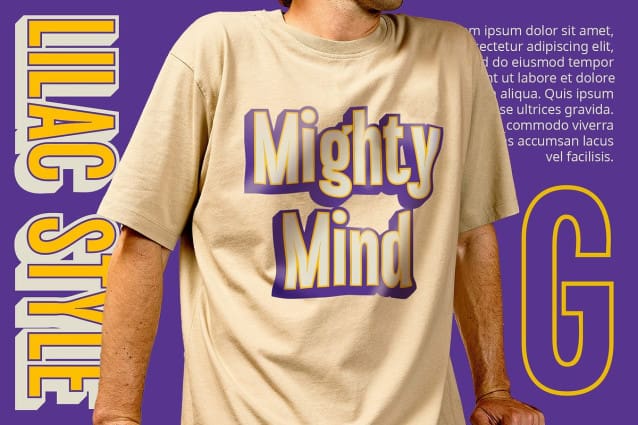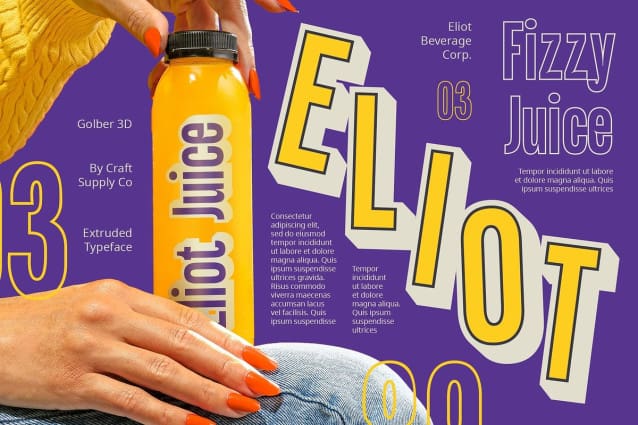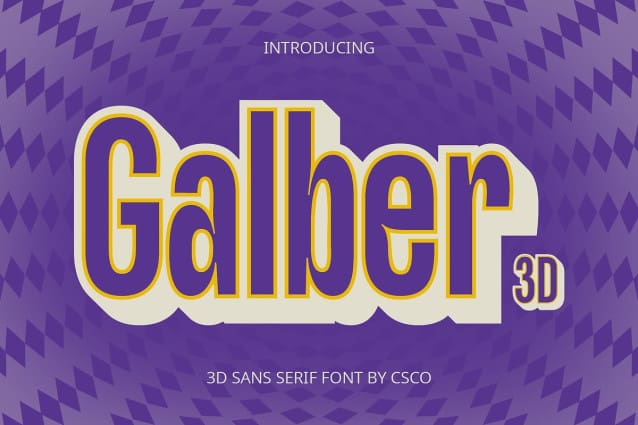
Galber 3D Font
Galber 3D Font: Bold and Impactful Display Font. Bold Condensed Design Galber 3D features a bold condensed design that commands attention with its compact and powerful appearance.
Low Contrast and 3D Effect The font boasts low contrast and a striking 3D effect, adding depth and dimension to each character for an eye-catching display.
Ideal for Display Purposes With its bold condensed style and 3D effect, This font is tailor-made for display purposes, making it perfect for headlines, banners, and signage.
Versatile Application Despite its bold and impactful design, This font is versatile in its application, lending itself well to various design projects such as posters, logos, and branding materials.
Powerful and Versatile Display Font This font combines boldness, compactness, and a striking 3D effect to create a font that stands out in any display setting. Its versatility makes it a go-to choice for designers looking to make a bold statement in their projects.